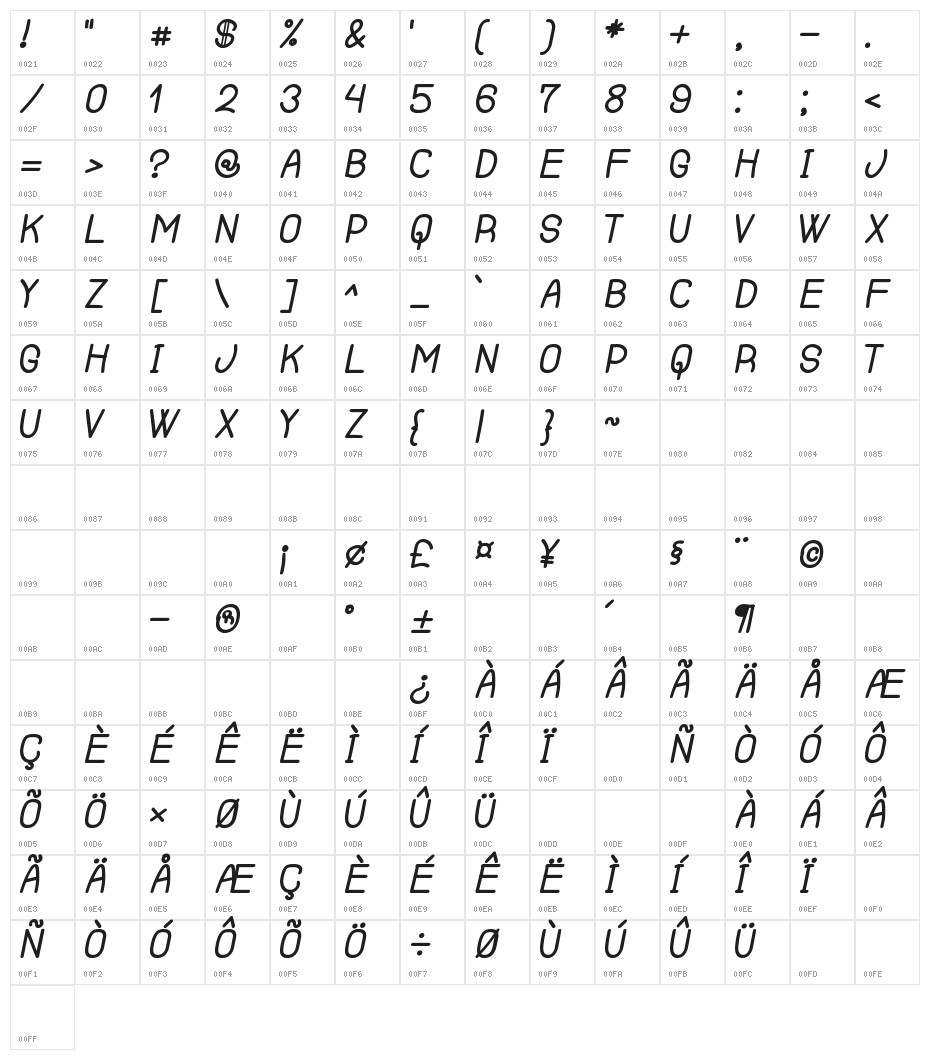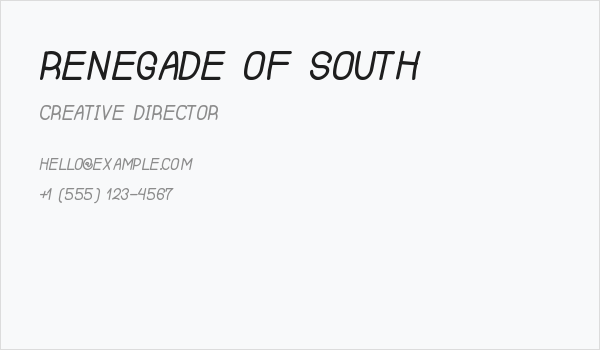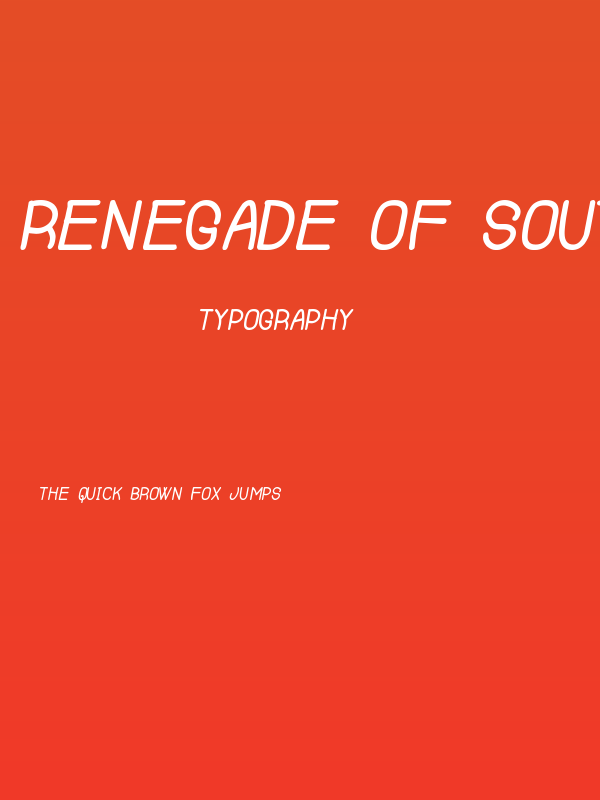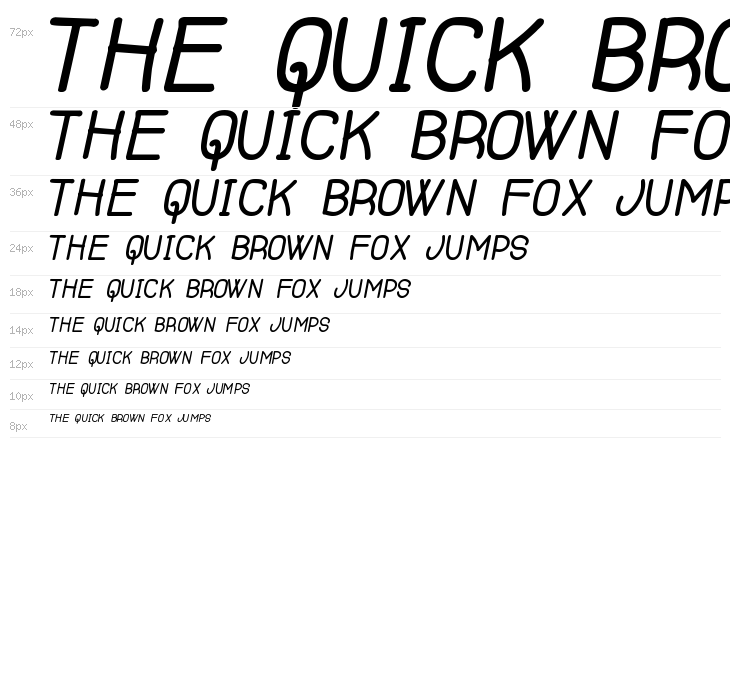
Renegade Of South Font
Renegade Of South Description
This font features a dynamic and energetic style, characterized by its slanted, handwritten appearance. The letters are slightly italicized, giving a sense of motion and fluidity. The strokes are consistent in thickness, providing a medium contrast that enhances readability while maintaining a casual, informal look. The characters are well-spaced, ensuring clarity and legibility. This font is versatile, suitable for projects that require a personal touch or a sense of spontaneity. Its unique style makes it ideal for creative designs, branding, and advertising materials.
| Overall Style | Casual, Energetic |
| Use Case | Headlines, Logos, Creative Designs |
| Proposed Projects | Ideal for branding, creative designs, advertising, and any project requiring a personal touch. |